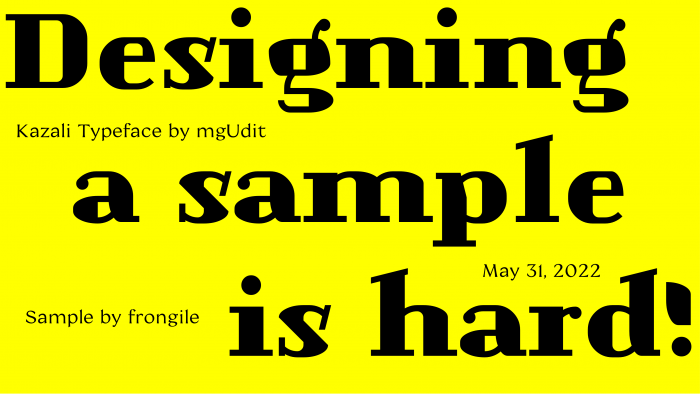
WOW! Cute and funny. So many cool fonts have been appearing on the FontStruct lately. Reminded me of fonts Echo Heo (bluemon).
I would prefer such forms:
@fontlanger2005 yeah the upper parts of the stems of m, n, p, q, r, ñ seem inconsistent (compared to bottom parts of stems of b, d, …). Personally I prefer the given forms (as far as I remembered I put them there instead of the symmetric versions in a conscious decision) but I put some alternatives to E000 to E005 (Private Use Area 1).
i made a sample myself
@frongile thanks a lot. I somehow lack creativity and motivation to create samples. I should definitely try to create some for my other published fonts …
The comma's little thing at the bottom is longer than the quotation marks.